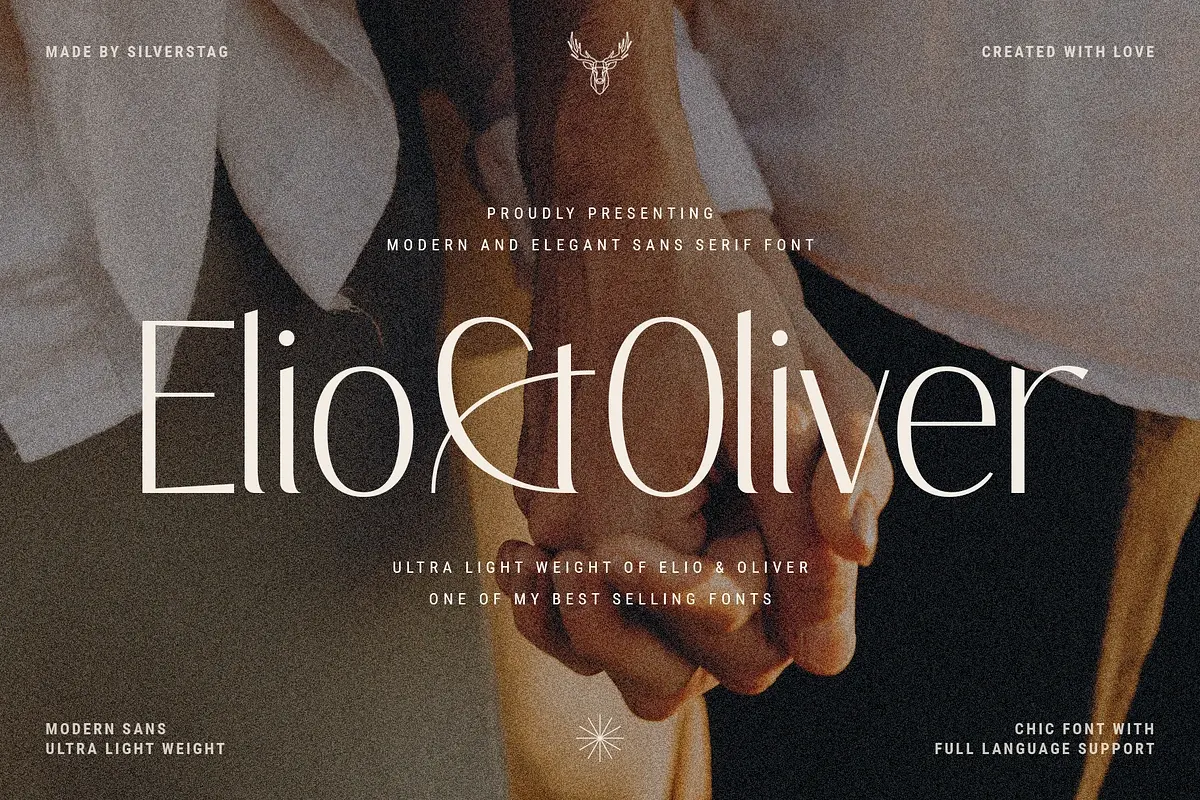
Elio & Oliver Ultra Light Sans Serif Font Free Download is a sleek and minimalist typeface that exudes modern elegance. With its ultra-thin strokes and clean structure, this font is ideal for high-end branding, fashion lookbooks, editorial design, and digital interfaces where clarity and sophistication are key.
Its airy and refined appearance makes it perfect for spacious layouts and premium design aesthetics. Elio & Oliver works beautifully in both headlines and subtle text applications, offering a contemporary touch to any project. The sans serif form enhances readability while maintaining a distinctive style.
Whether you're crafting a luxury logo or a stylish website, this typeface offers both functionality and flair.